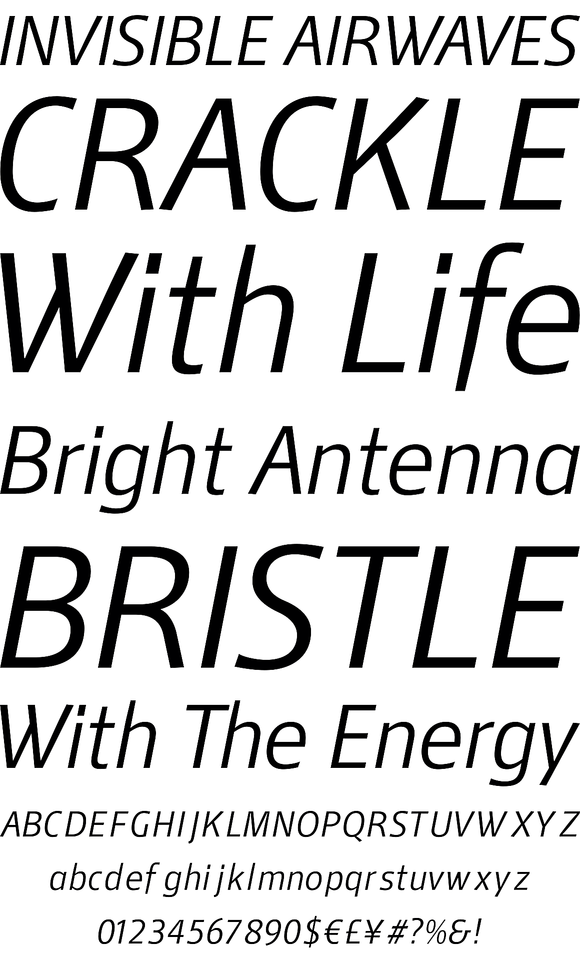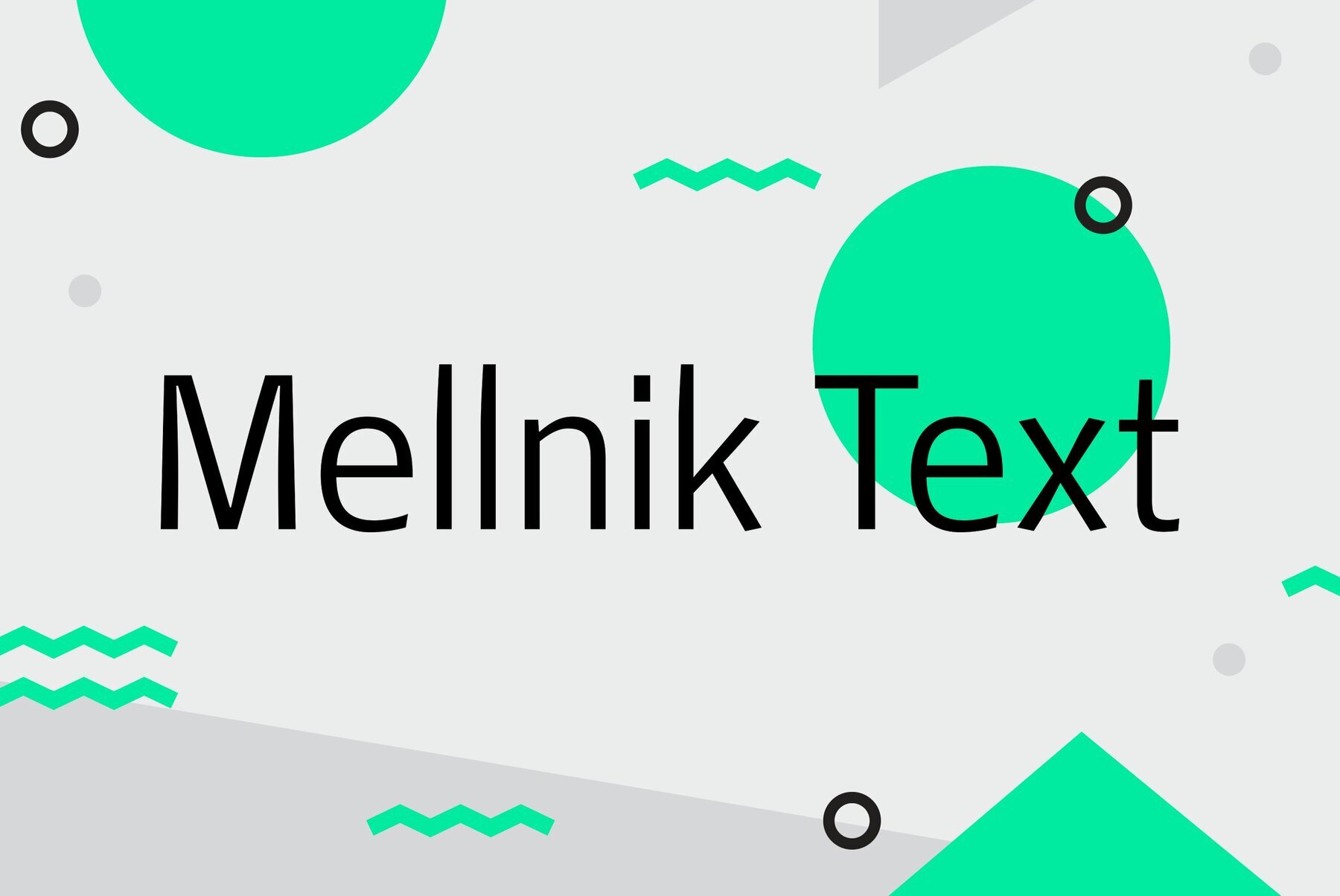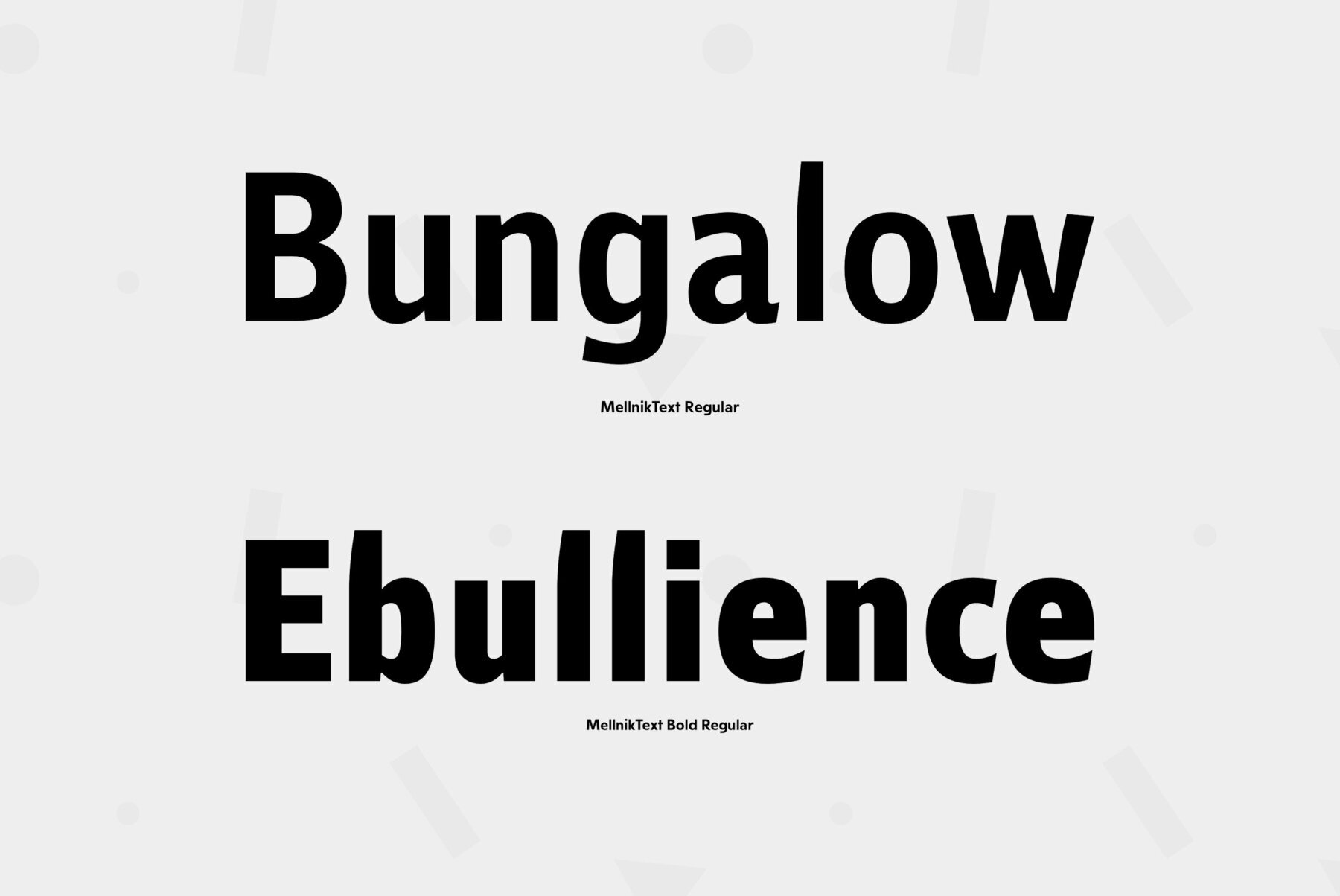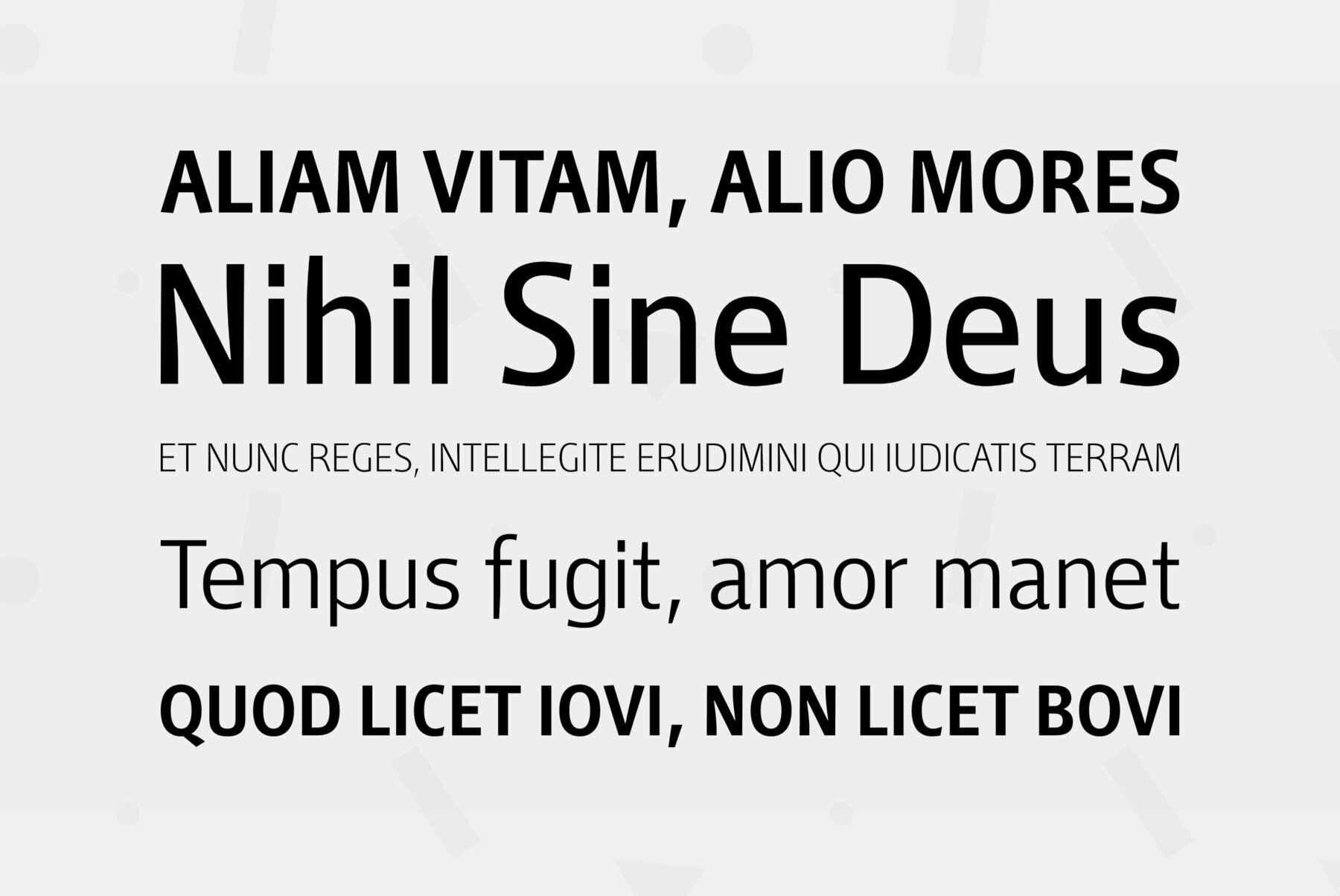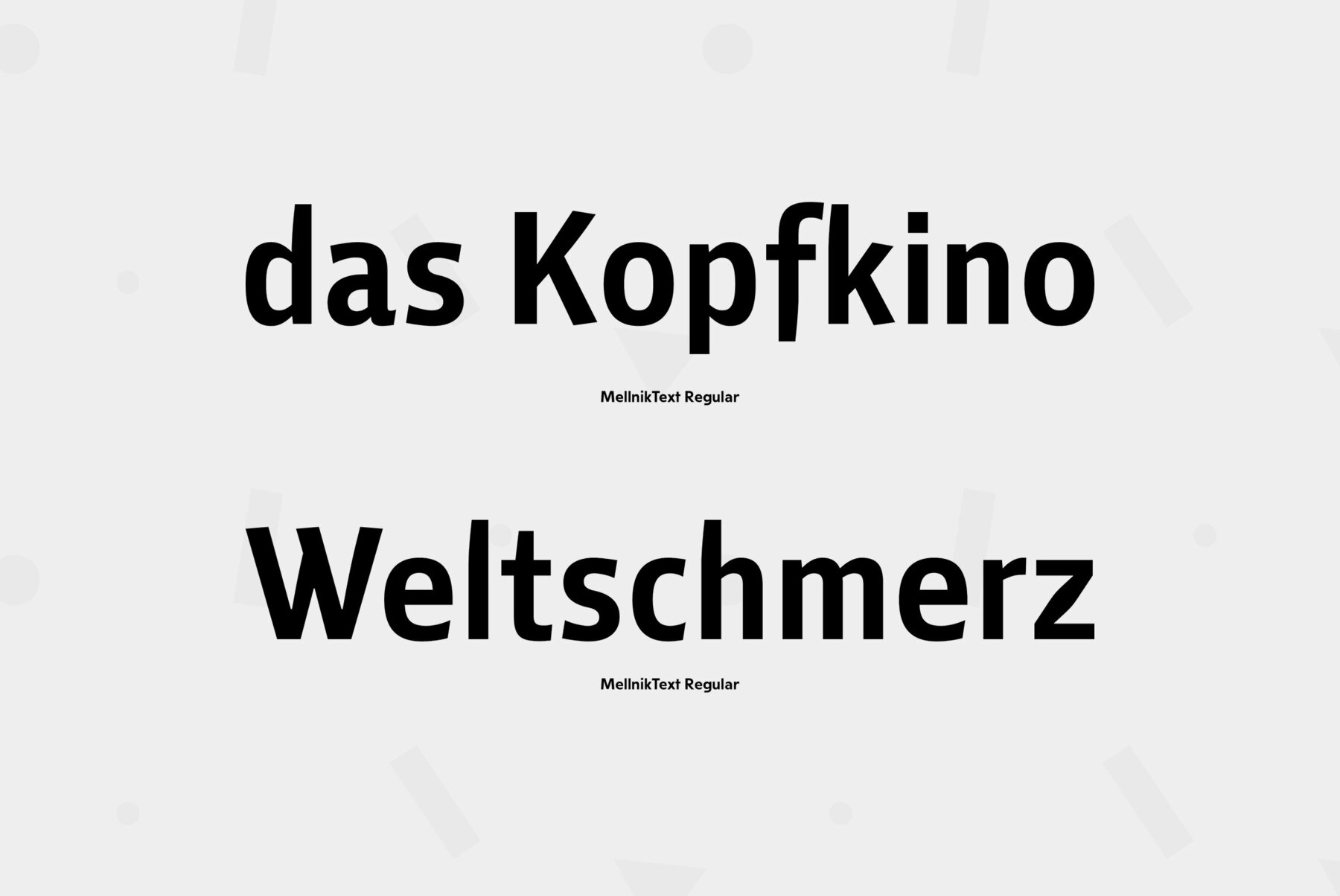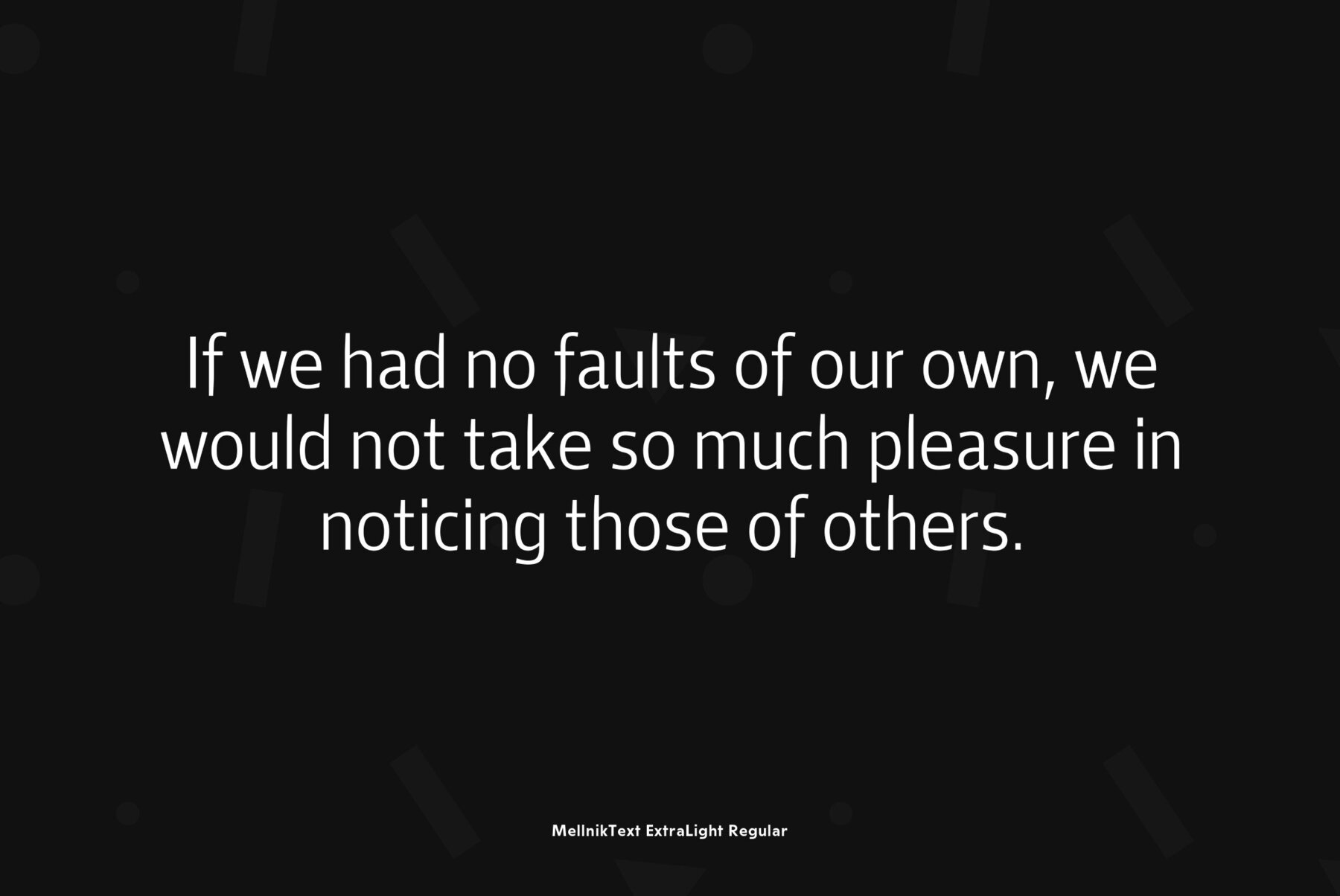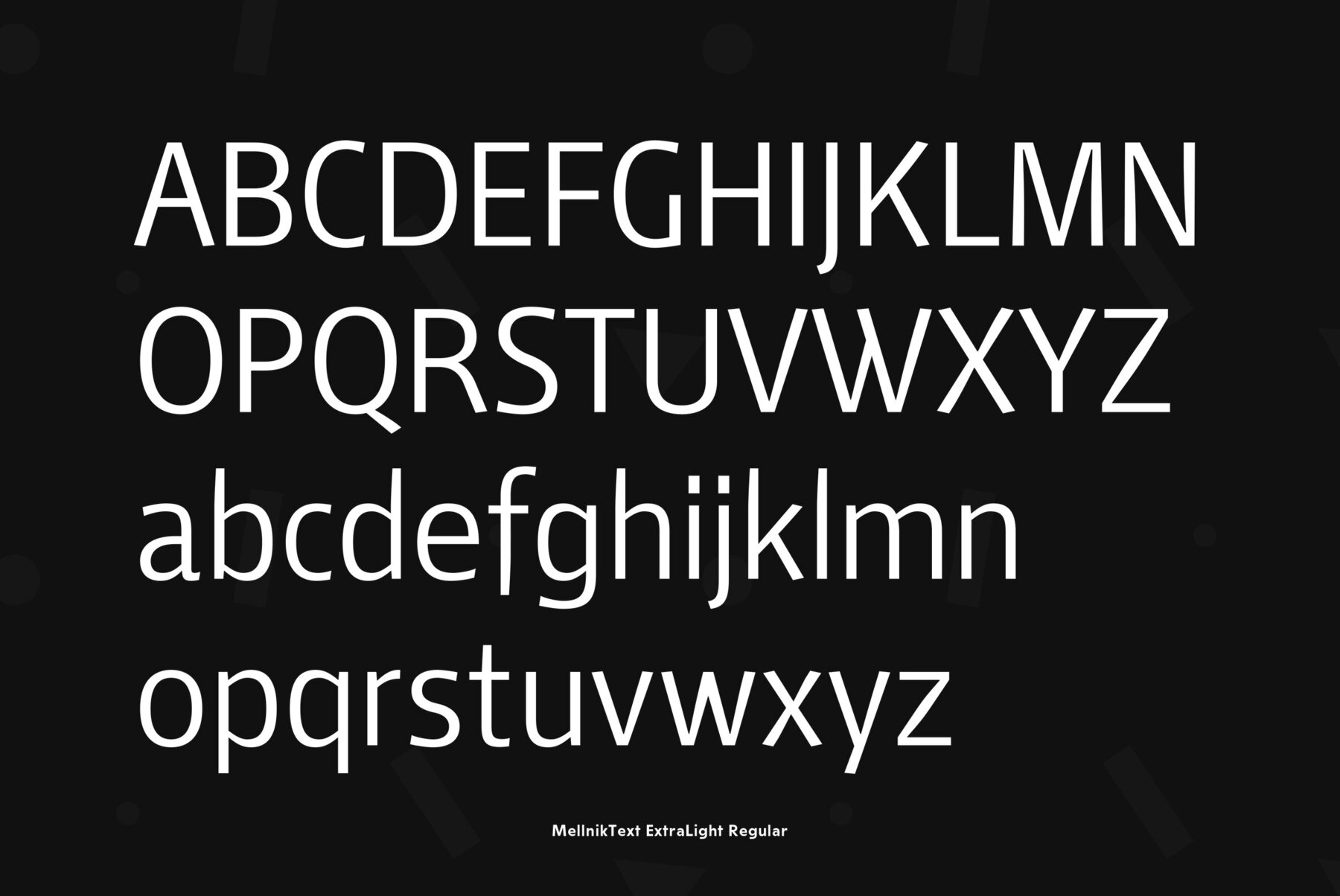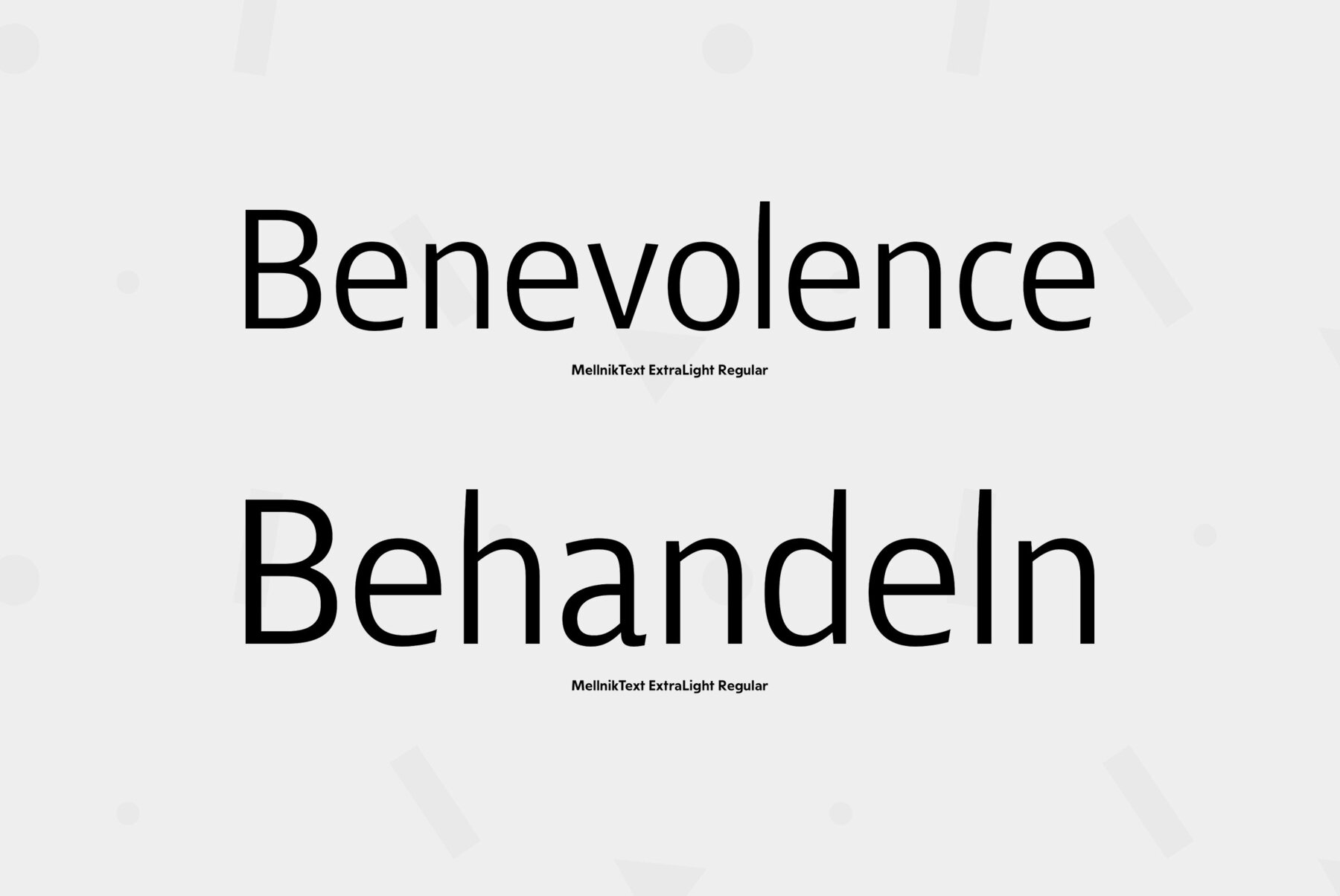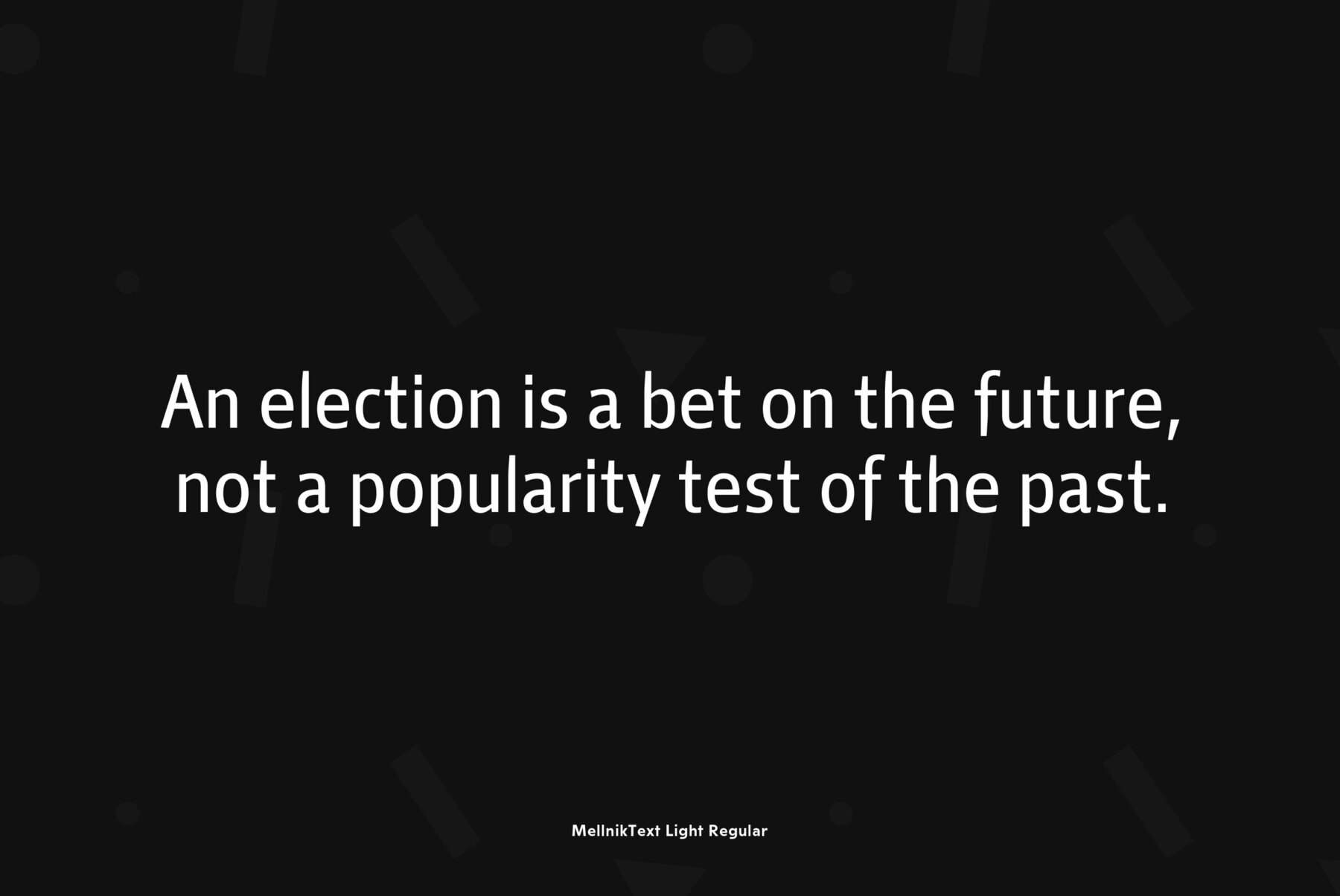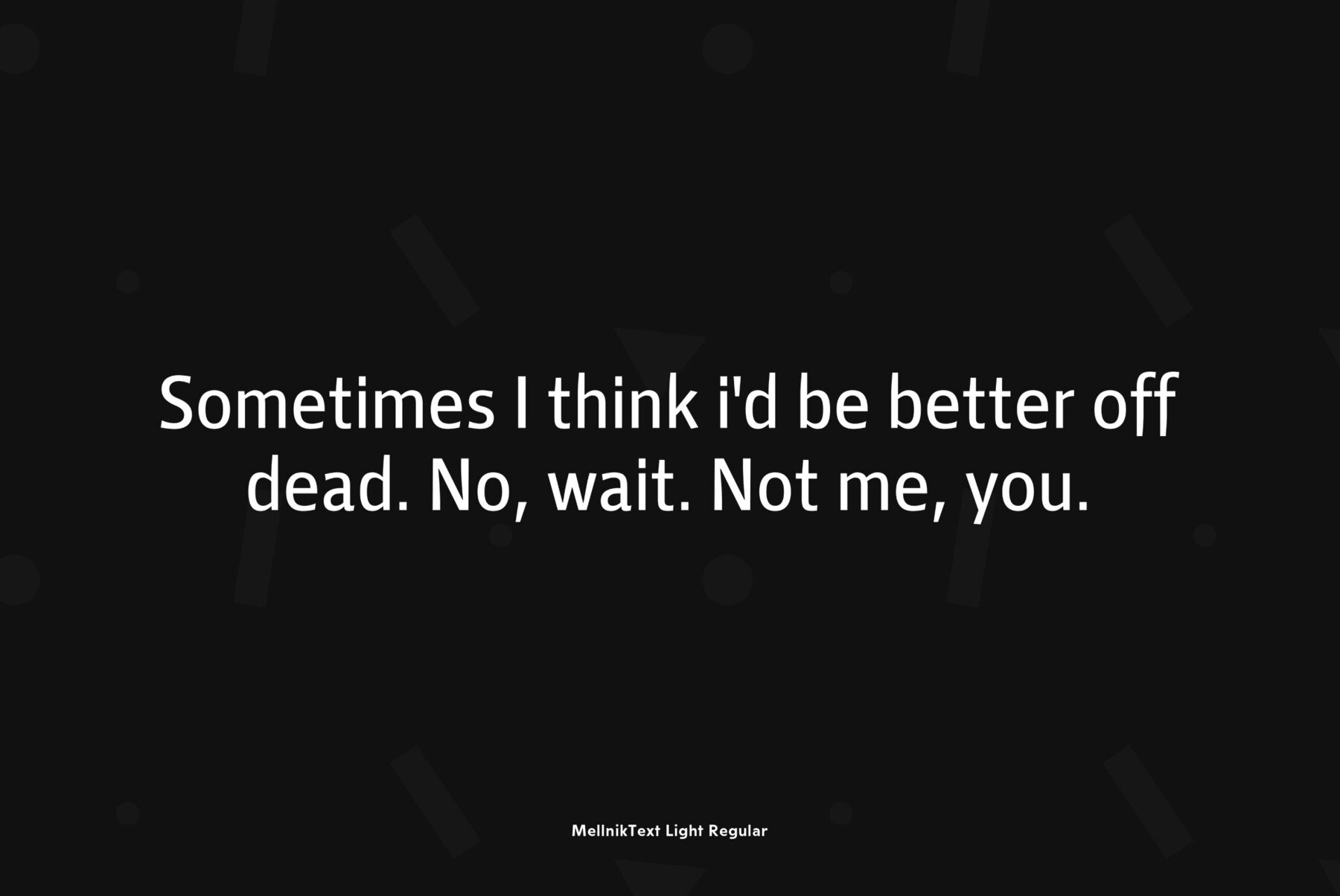
Mellnik Text
Mellnik is a sans serif of humanist style (in a way) that was developed by Oleg Karpinsky and released by ParaType in 2006. The type family contains 9 styles with a number of alternate characters in each ones. For use as a text font in long text passages of advertising booklets, catalogues or magazines, as well as for accident setting. Mellnik may be also applied as a corporate typeface. Giant ink traps (or something like that) produce an original image of the family. Five condensed styles were added in 2007 by the same designer. Mellnik Text in 12 styles (added in 2008) has more narrow proportions and it is rather appropriate for text setting.